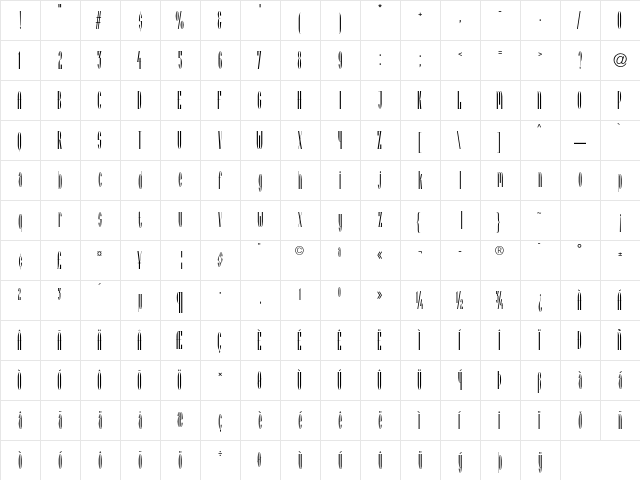
Arcadia LT Std Roman
| Designer | Neville Brody |
Design Context for Arcadia LT Std Typeface
Arcadia LT Std takes a measured approach to typography — its balanced proportions and neutral character make it a reliable workhorse for both digital and print work. Its slender proportions lend an understated elegance to any composition.